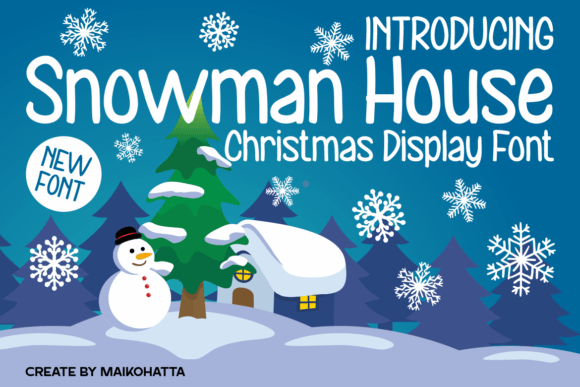
Adorn your digital creations with the whimsical charm of Snowman House Font, a display font family that exudes the magic of Christmas. Crafted by the skilled hands of maikofarazhatta, this font is a visual ode to the season of joy, perfect for infusing your designs with a touch of festive cheer.
With its playful curves and a touch of whimsy, Snowman House Font brings a smile to the face and evokes the warm memories of childhood wonder. Its unique letterforms, reminiscent of snow-kissed rooftops and twinkling lights, instantly transform your words into a winter wonderland.
Unleash your creativity and let Snowman House Font elevate your designs to new heights. Picture your website adorned with this delightful font, inviting visitors on a magical journey through a snow-covered landscape. Create enchanting greeting cards that bring heartfelt messages to life, spreading joy and warmth to loved ones near and far.
From posters announcing festive events to branding materials that capture the spirit of the season, Snowman House Font is the perfect choice for adding a touch of holiday magic to your visual creations. Its versatility shines through in both digital and print applications, making it an indispensable tool for designers, marketers, and anyone looking to evoke the magic of Christmas.
So, embrace the festive spirit and let Snowman House Font be your creative companion. Its charm and versatility will captivate your audience, transforming your designs into enchanting expressions of the season's joy. Step into the world of Snowman House Font and let your imagination soar!